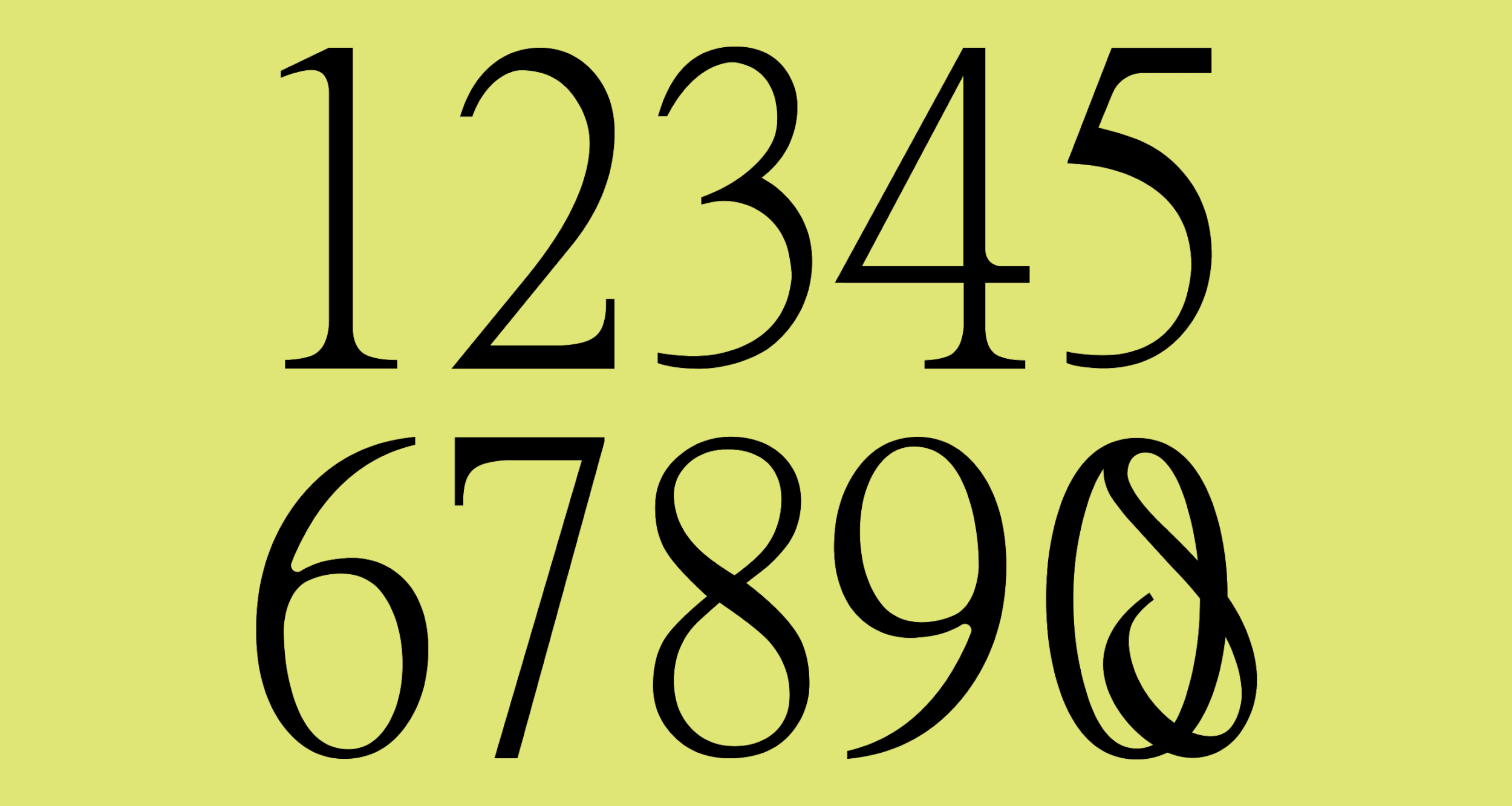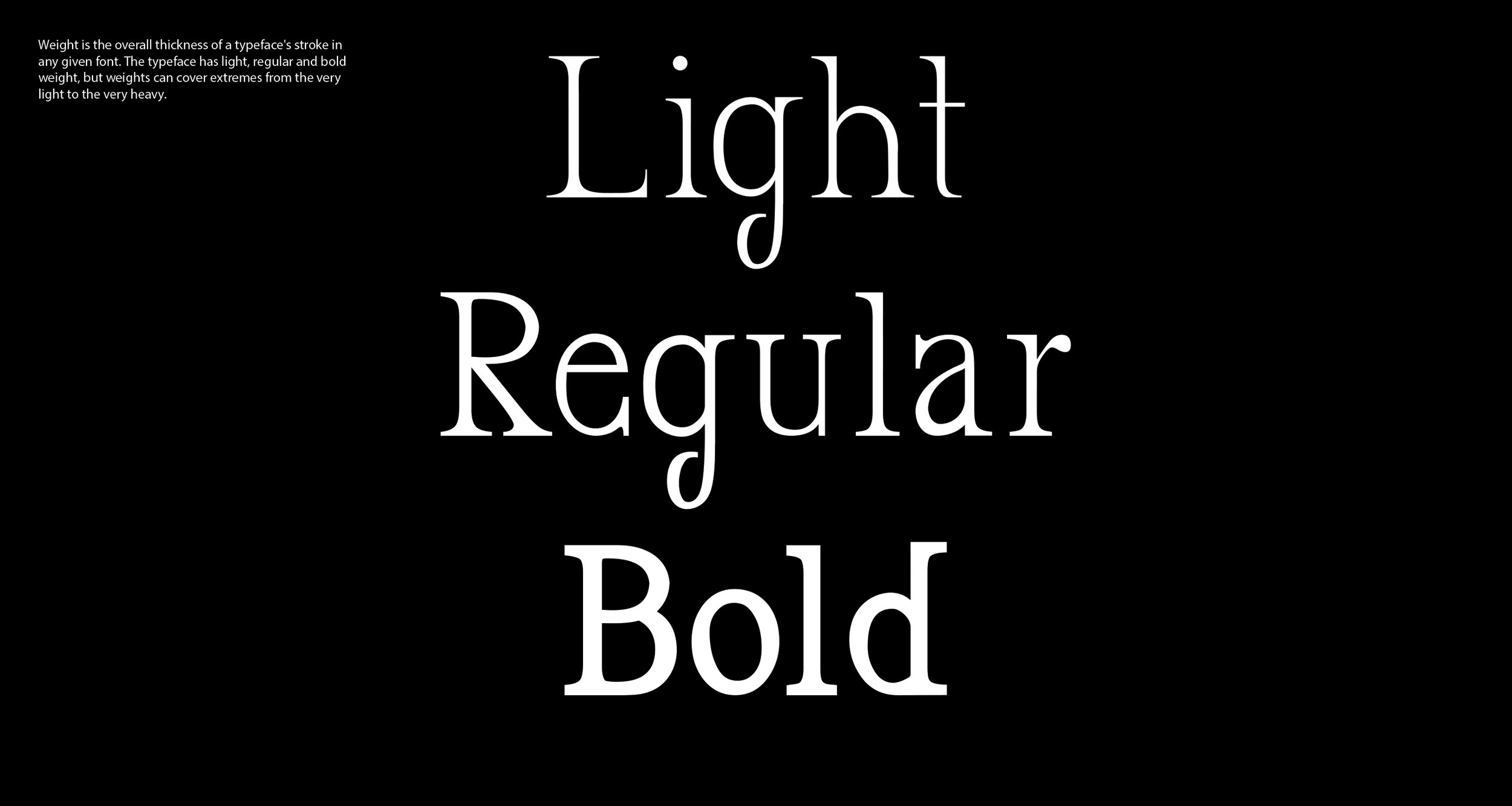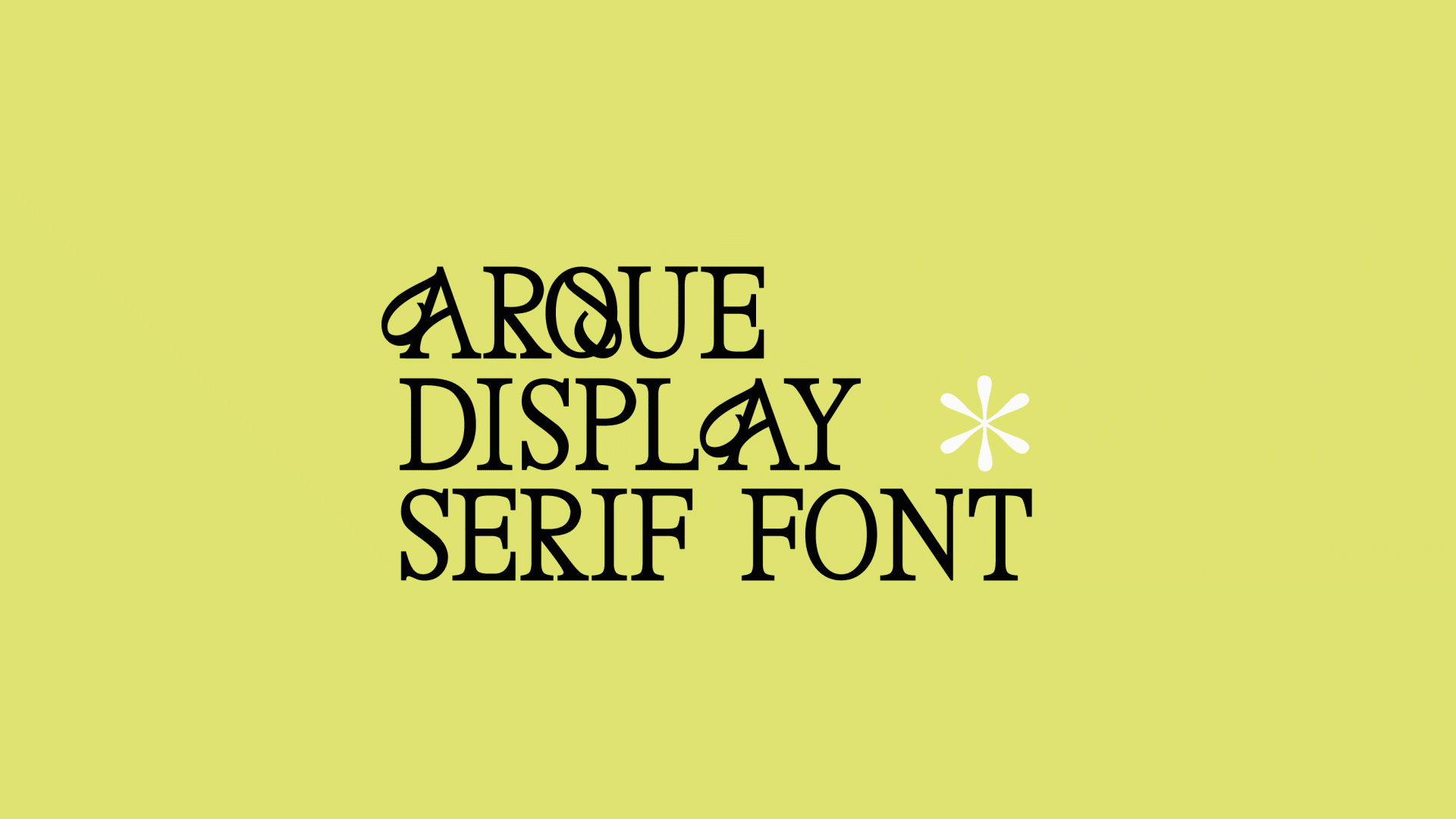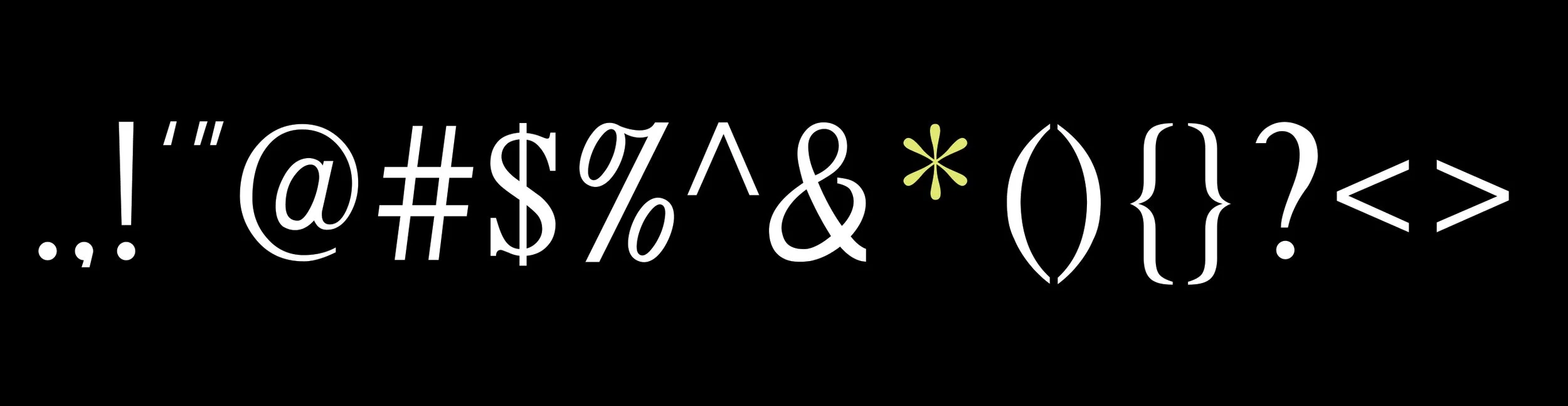
Arque Typeface
Display Serif Typeface
/ 2023
Arque is a display serif typeface, inspired by the timeless vintage aesthetic that has recently become a major trend.
This typeface carries an elegant yet striking presence, with razor-sharp impressions and distinctive letterforms that stand out.
Each character reveals unique crafted details, giving the typeface a signature personality.
The family includes three versatile weights, allowing Arque to move seamlessly from refined sophistication to bold impact,
making it an ideal choice for logos, headlines, posters, and editorial design.